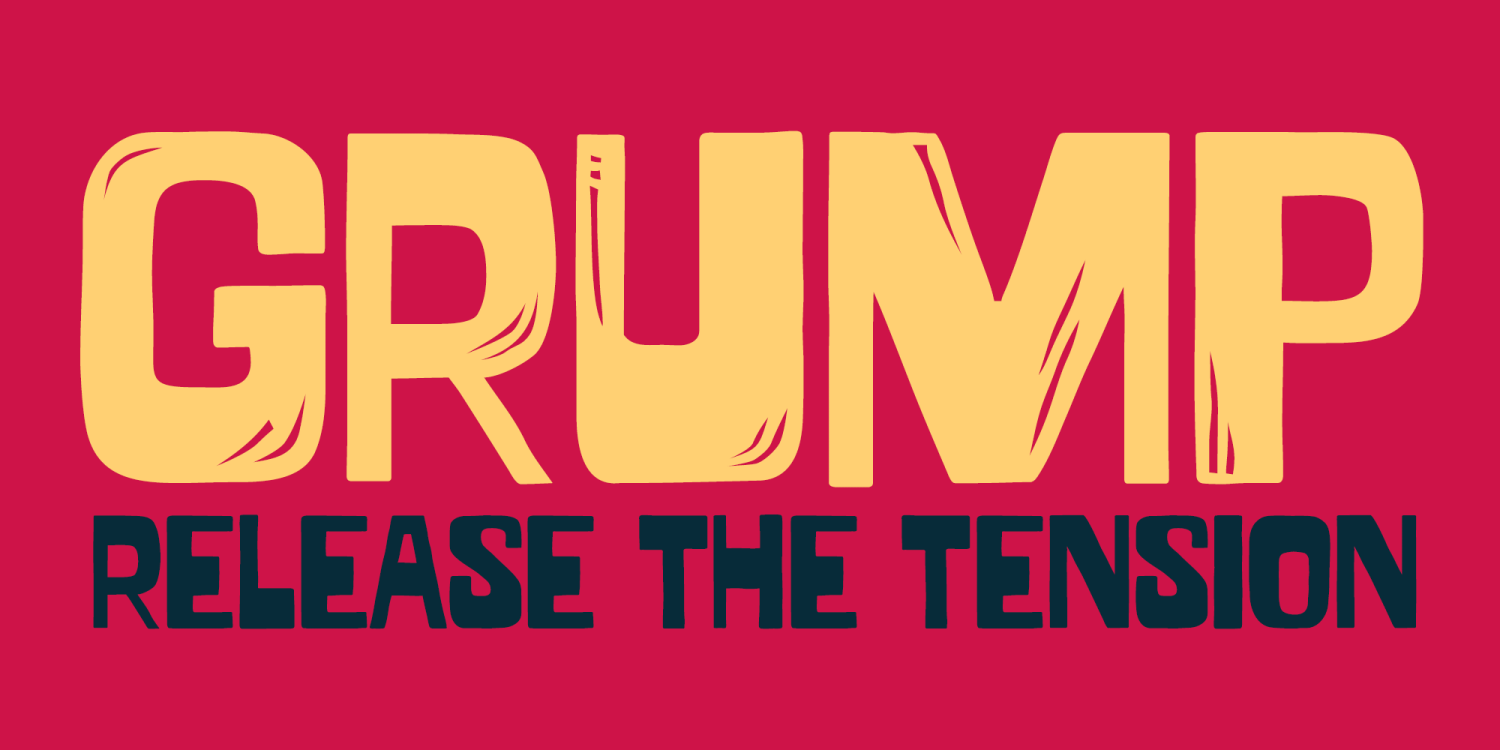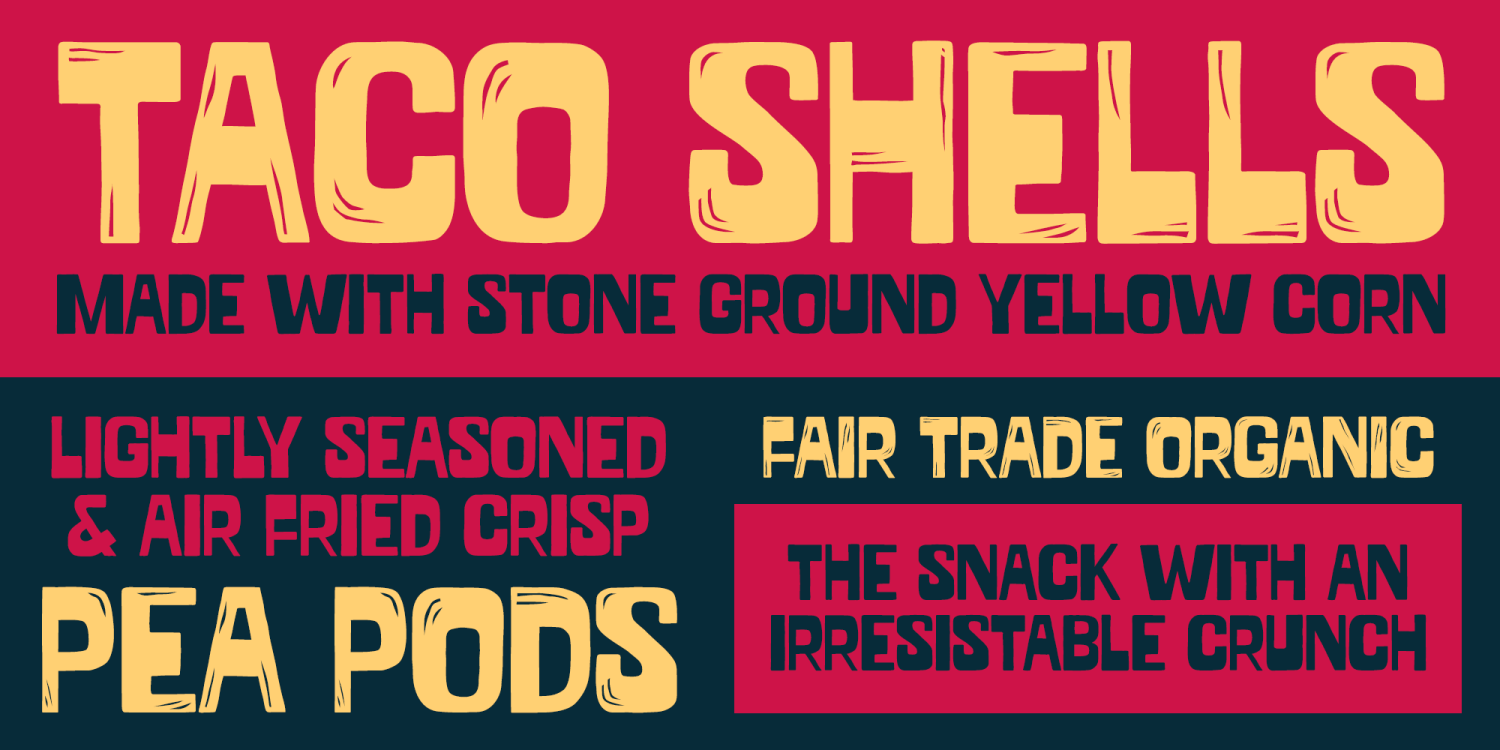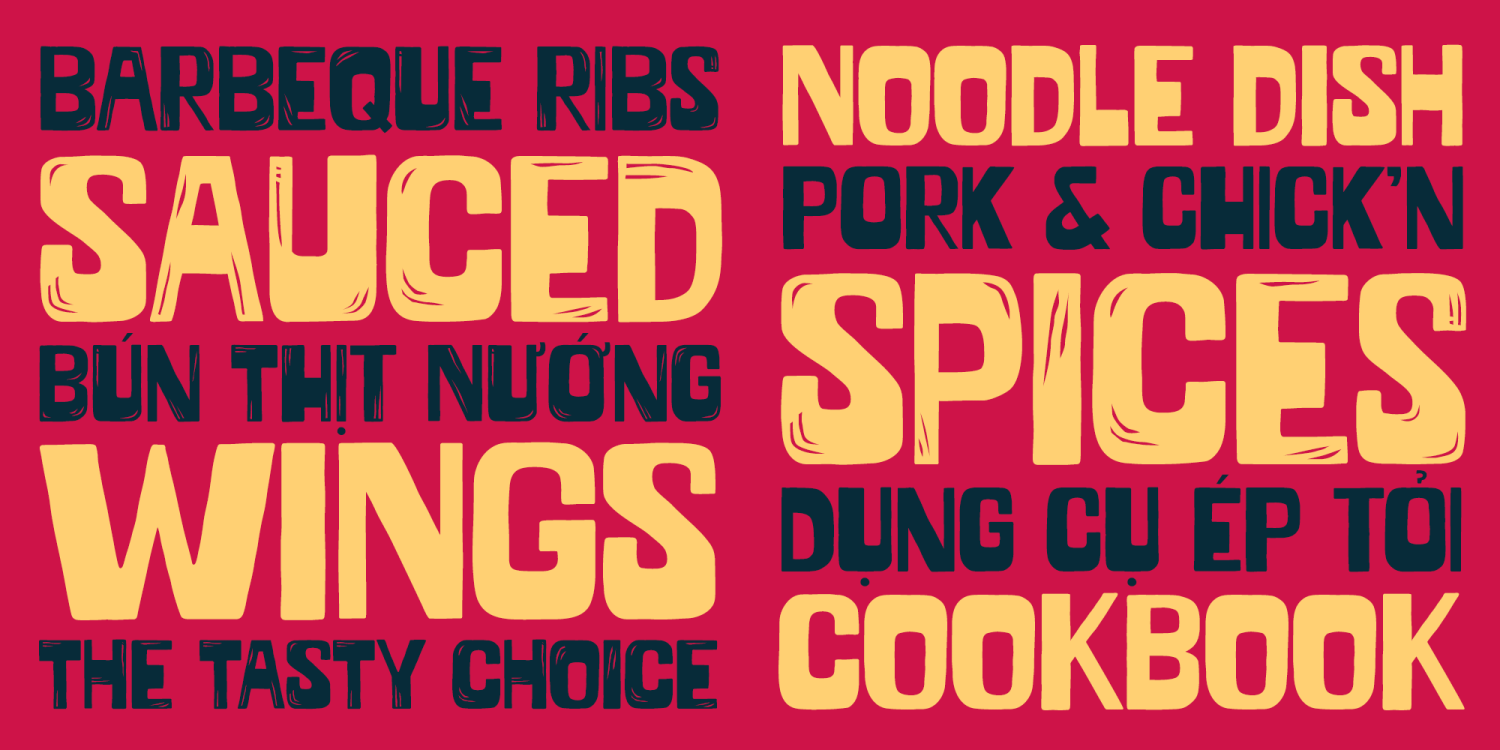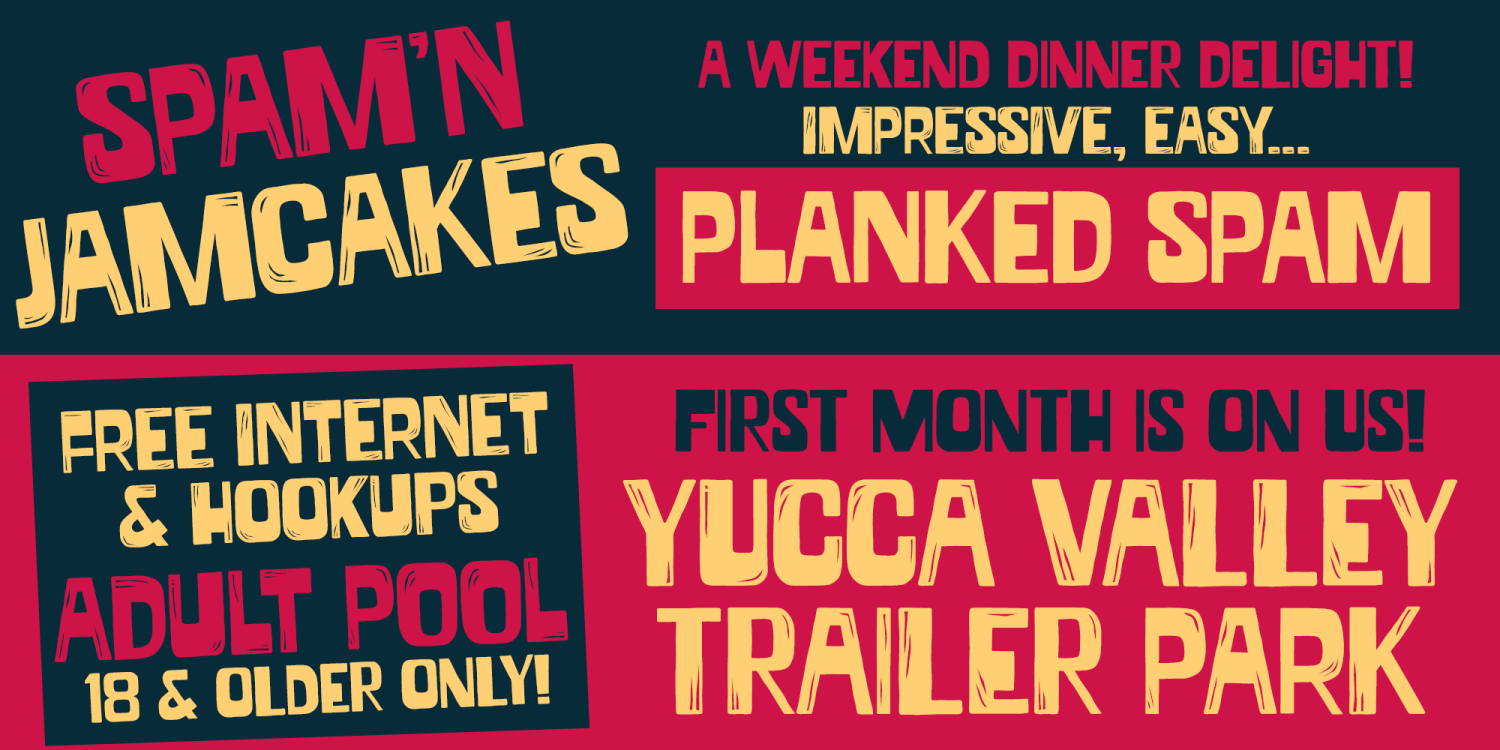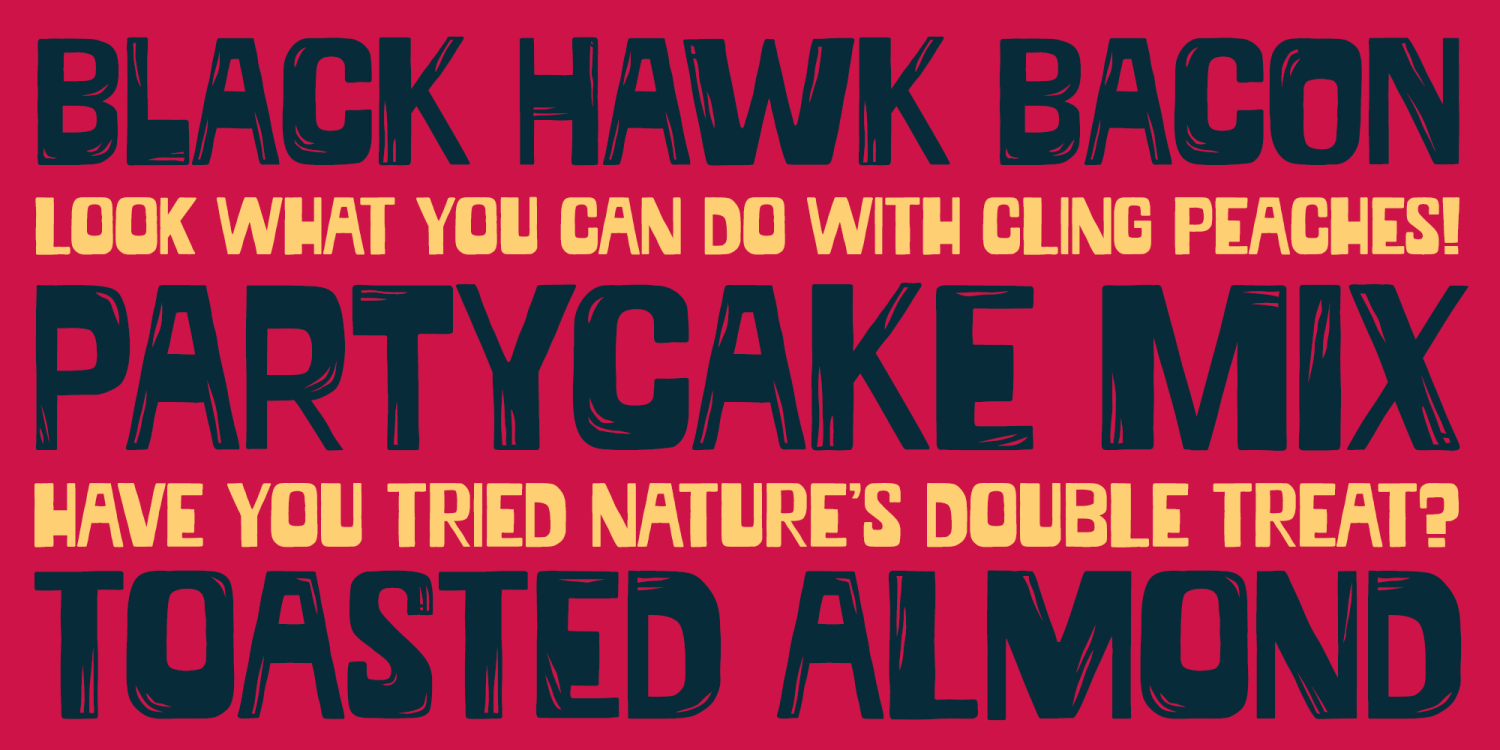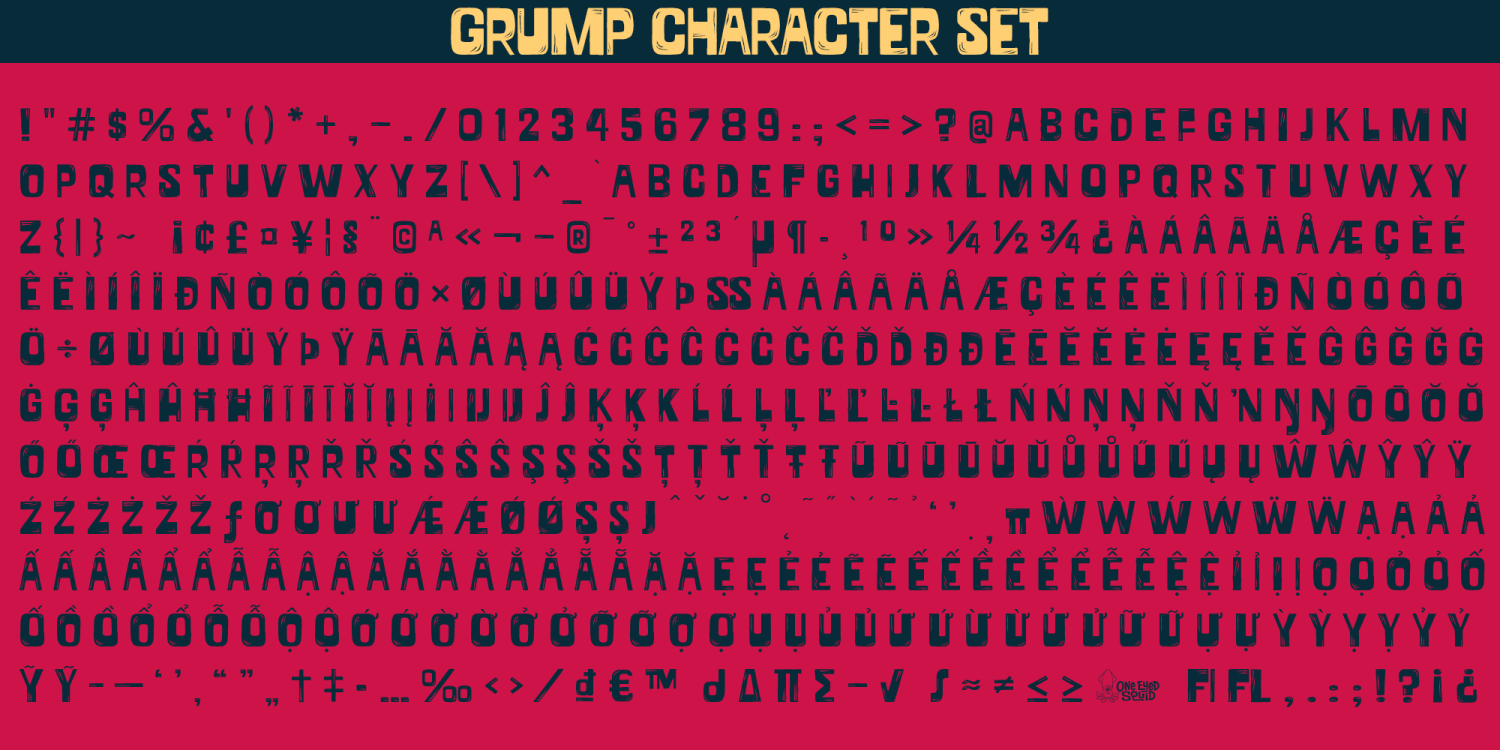
Grump
Grump is a seriously bold display font family built for loud, unapologetic typography with a rough-edged, confrontational personality. Designed to make an immediate impact, it brings a blunt, expressive voice to projects that call for attitude, grit, and oversized visual presence. The family includes Regular and Solid styles, with the Regular featuring linoleum-cut details for added texture and the Solid delivering a heavier, more forceful look. Ideal for posters, headlines, branding, packaging, logos, social media graphics, and other designs that need a strong, in-your-face typographic statement, Grump is made for bold creative work that refuses to be ignored. Includes extended Latin language support, including Vietnamese.
Regular
Solid
Grump includes 490 glyphs.